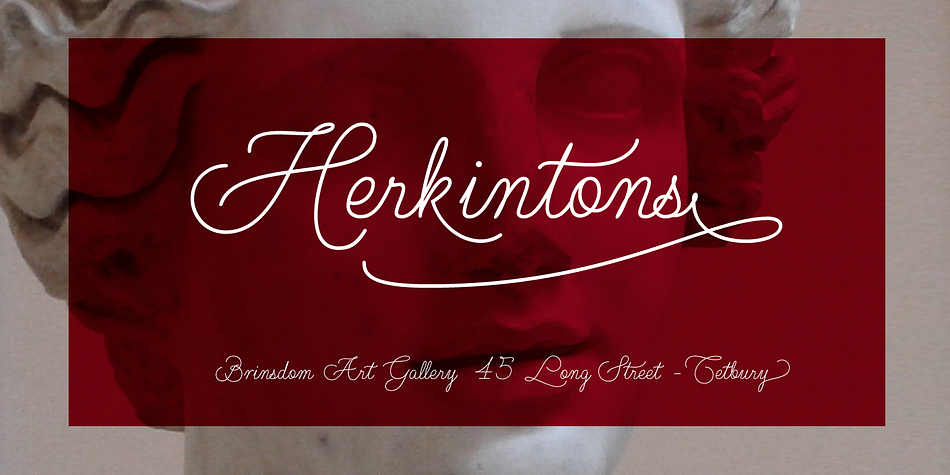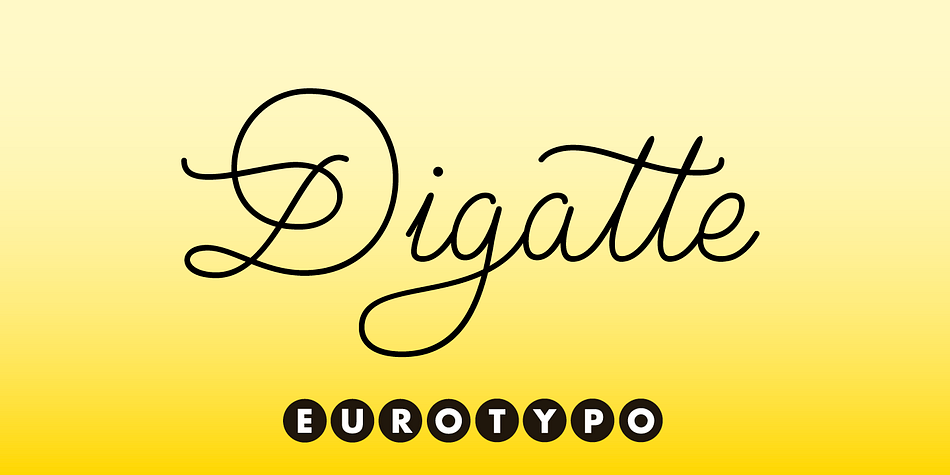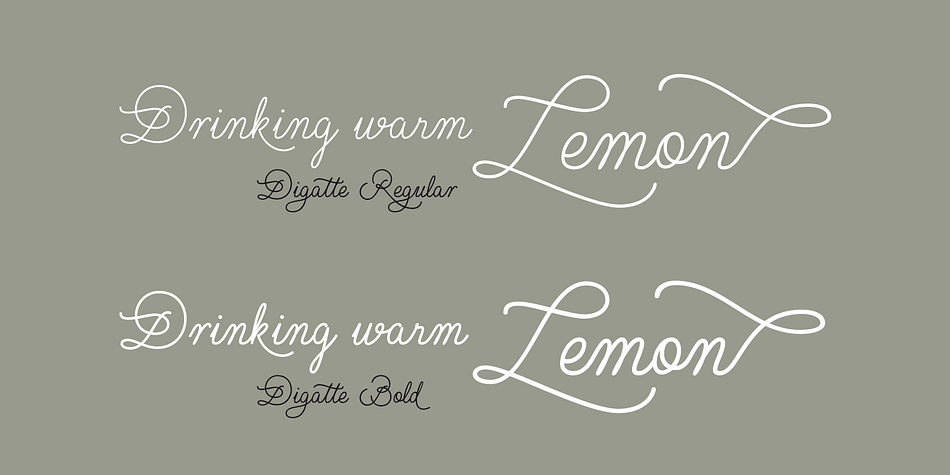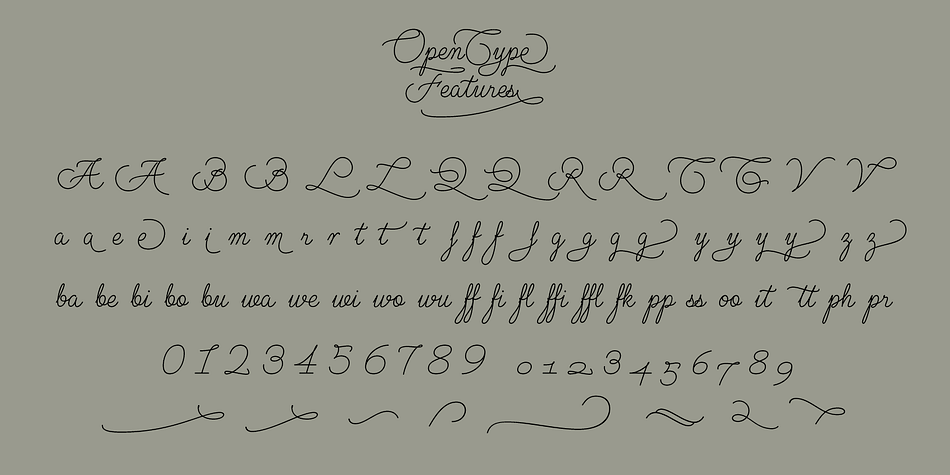
Designed by Olcar Alcaide, Digatte is a script font family. This typeface has three styles and was published by Eurotypo.
Digatte is a linear script font, it looks like a personal signature made with a rotating pen, whose stroke is continuous and uniform. These fonts can be combined with Digatte Quill, in which case the tool becomes modulated and evident.